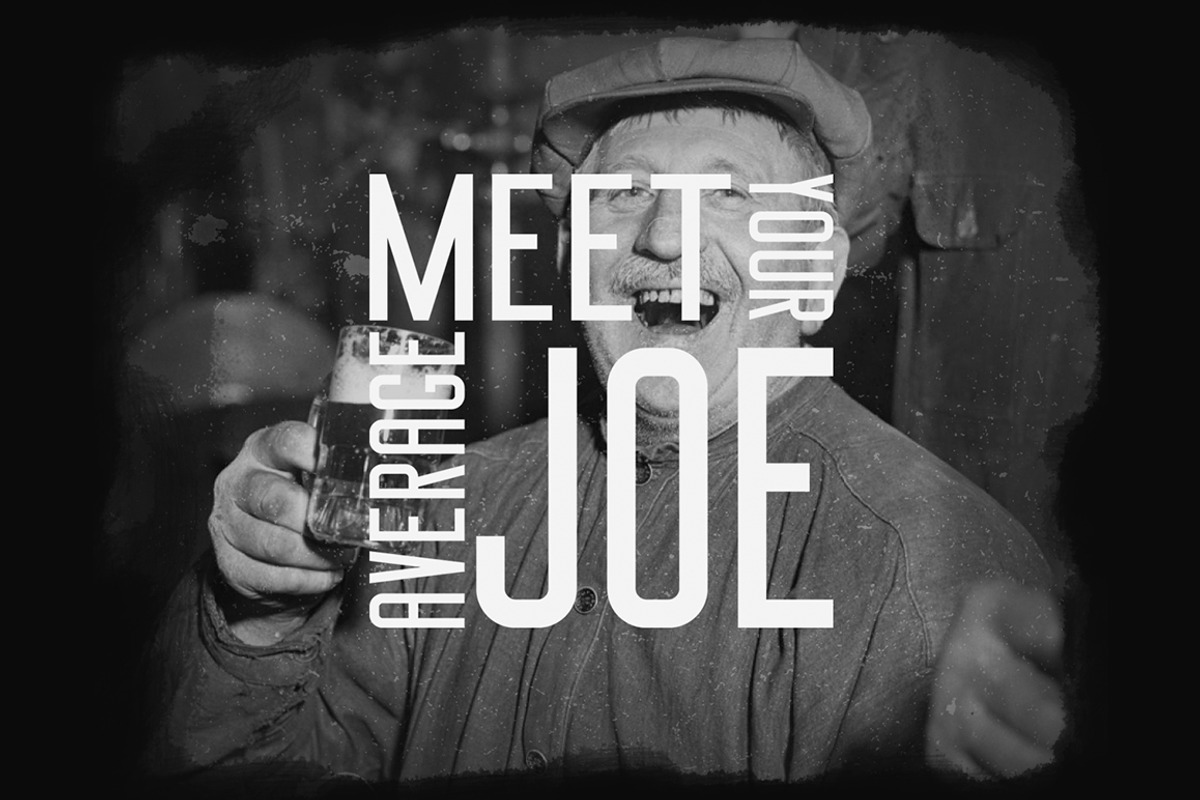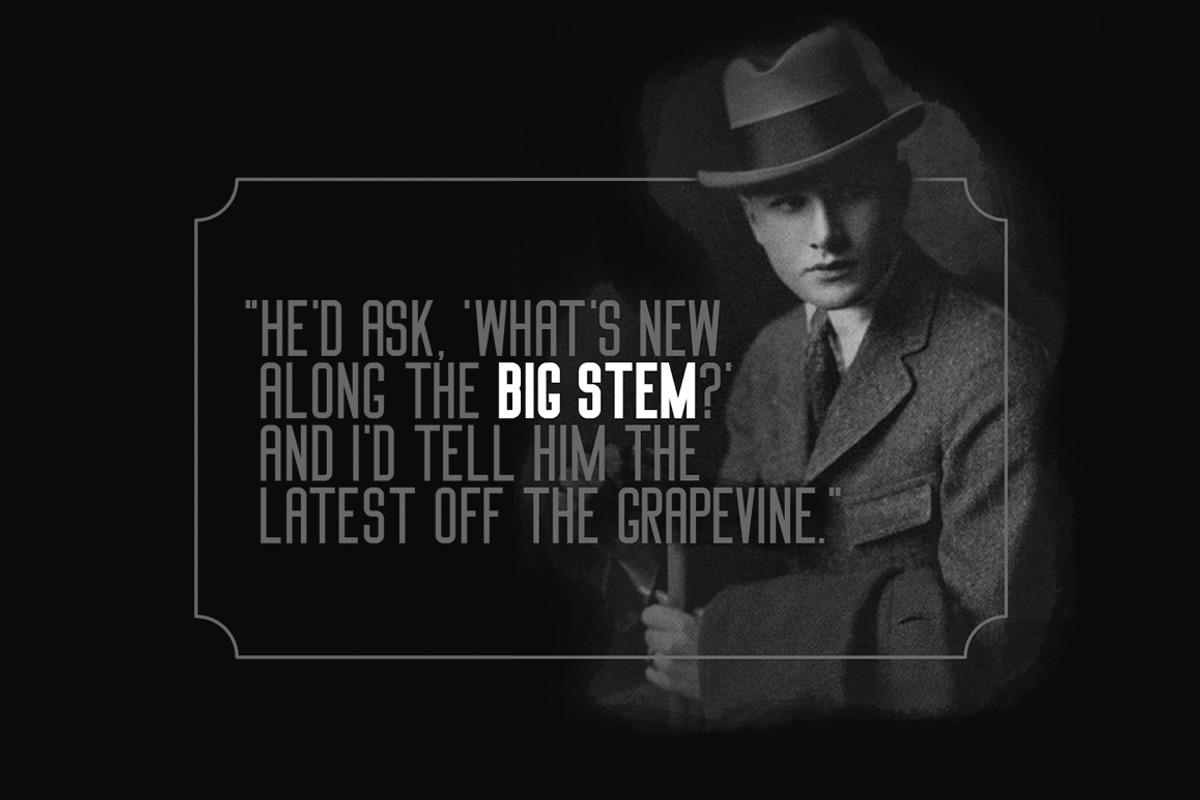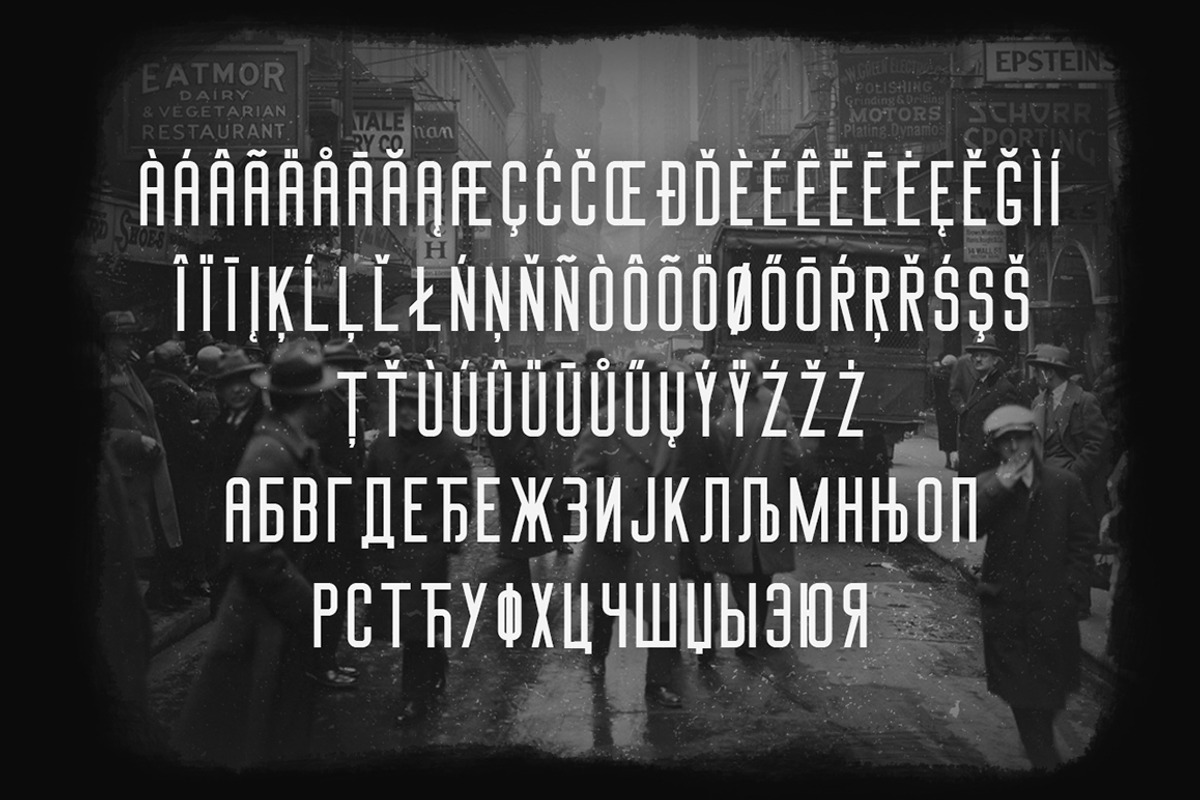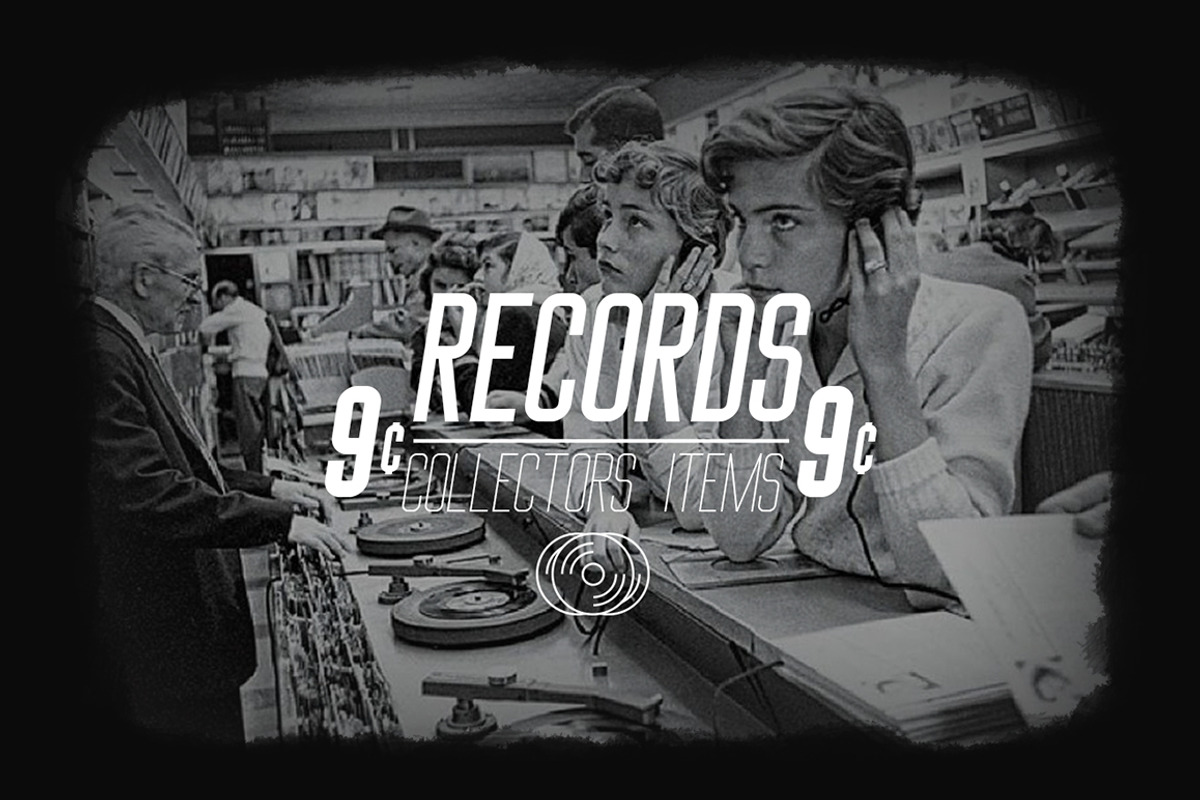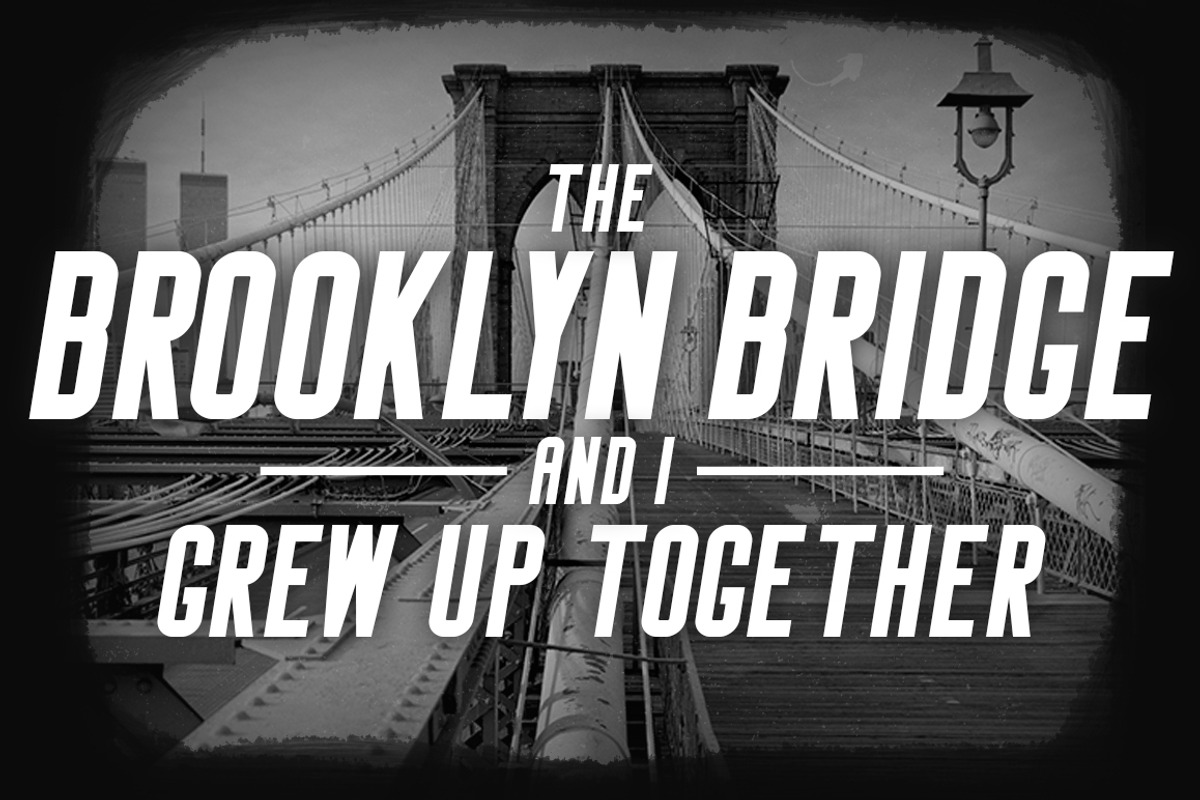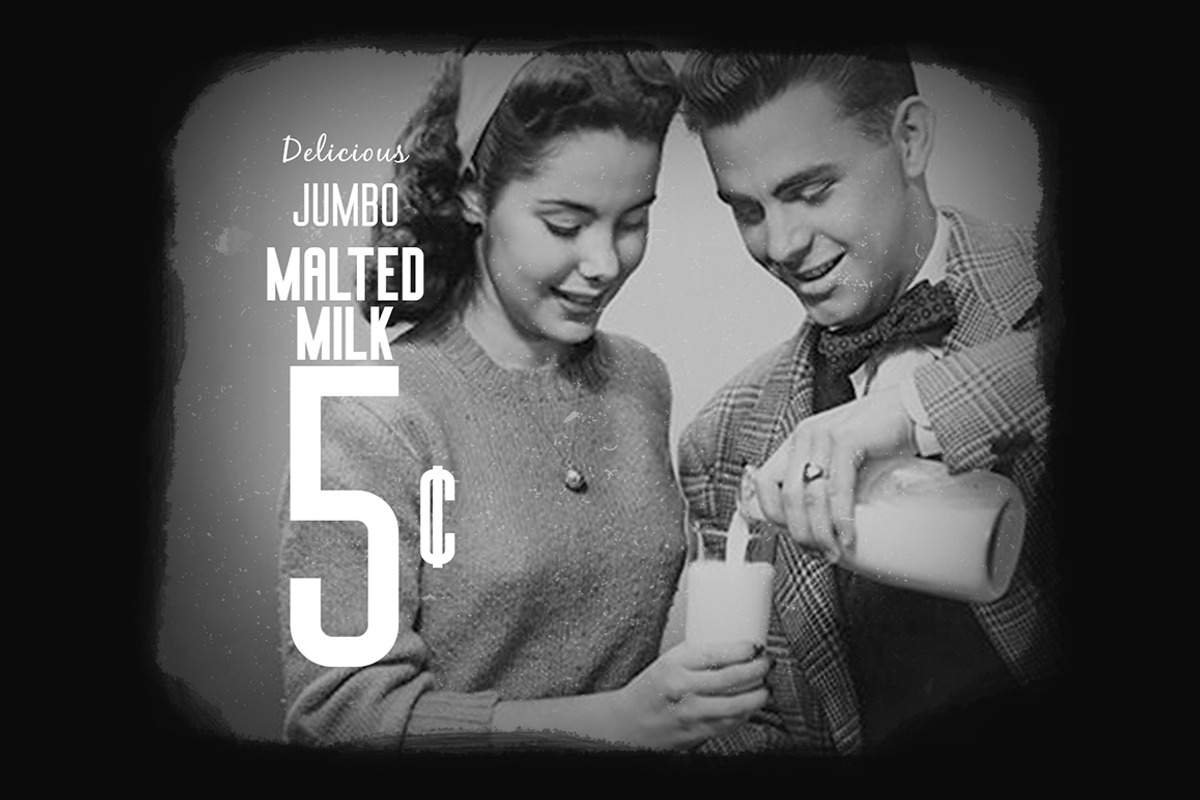
Big Stem Type Family
Big Stem is a all caps condensed typeface family with 6 weights. Its suitable for posters, logotypes, titles, headlines and all things big and heavy. Multilingual support: north, south and central Europe.
• Regular • Light • Bold
• Oblique • Light Oblique • Bold Oblique